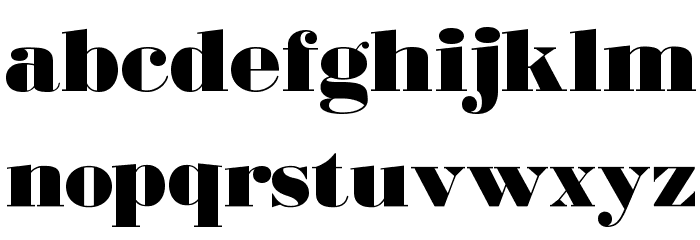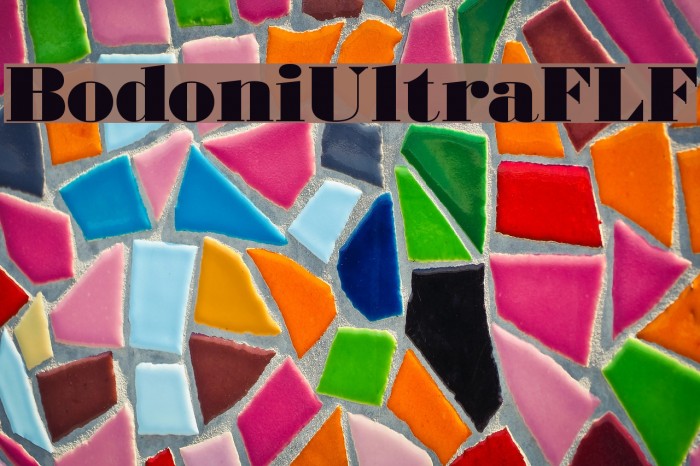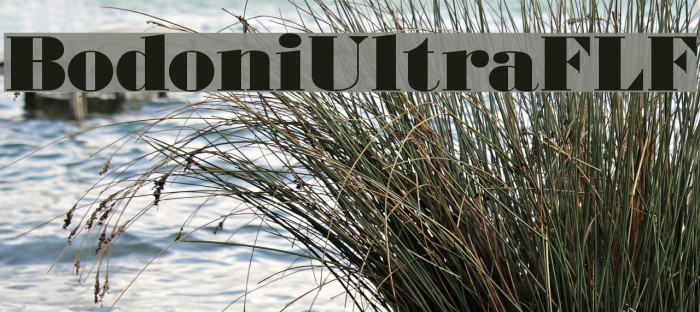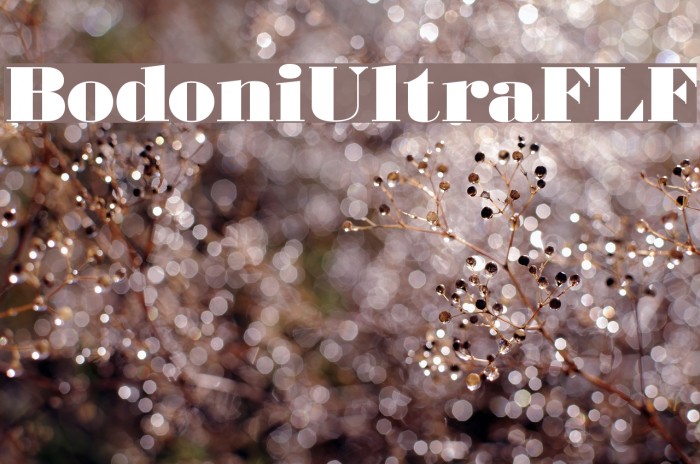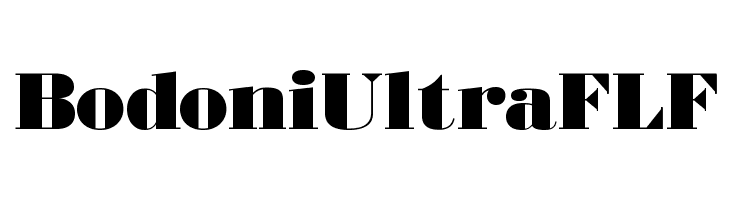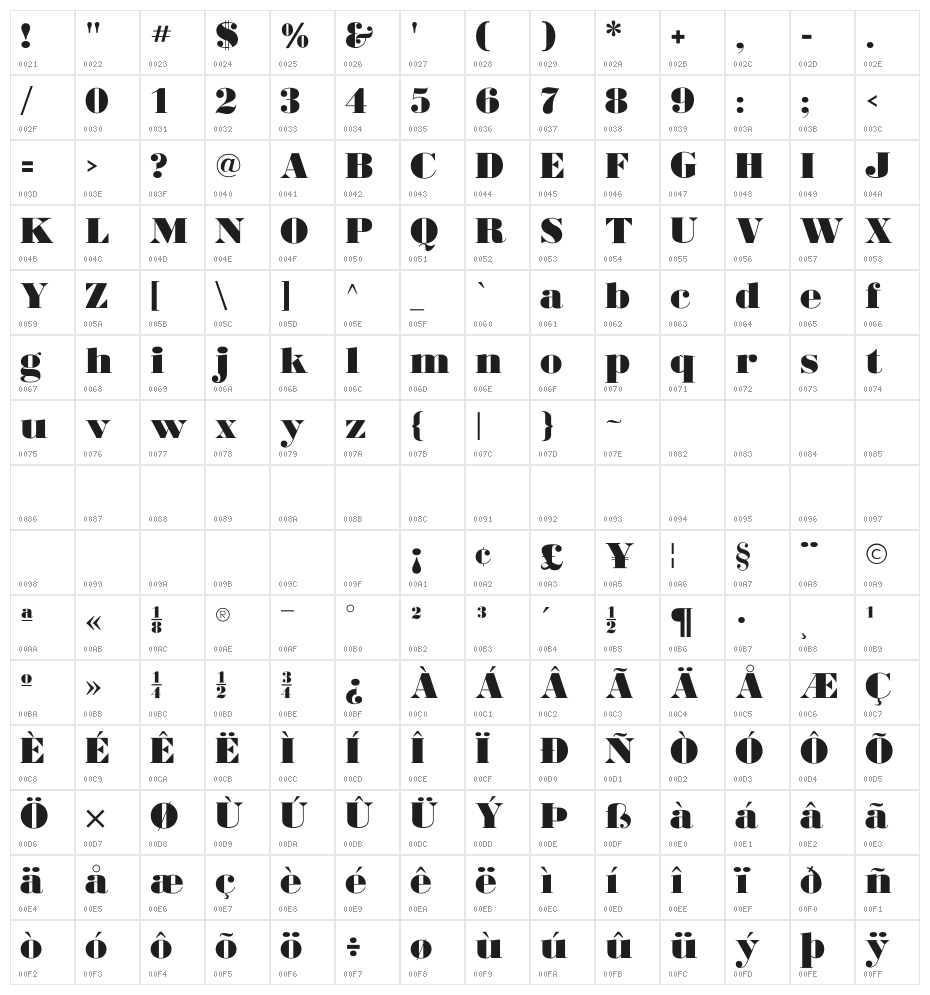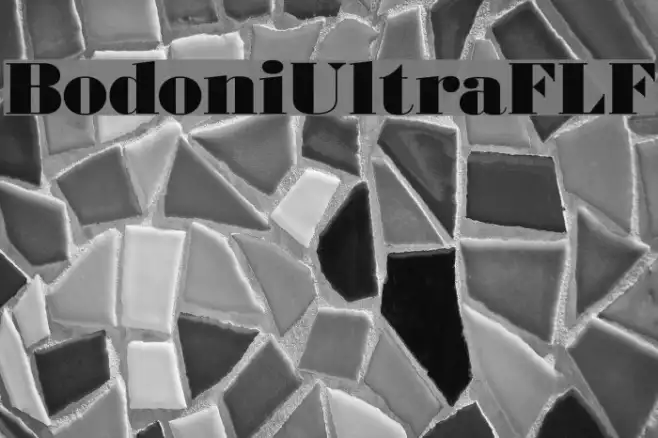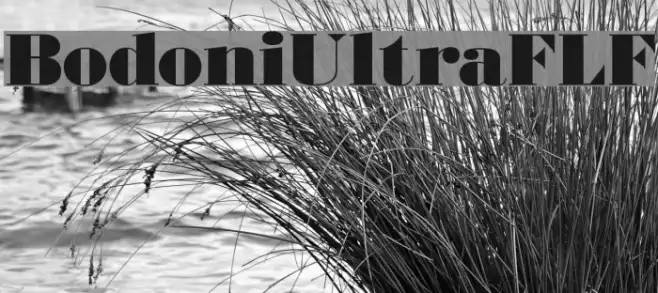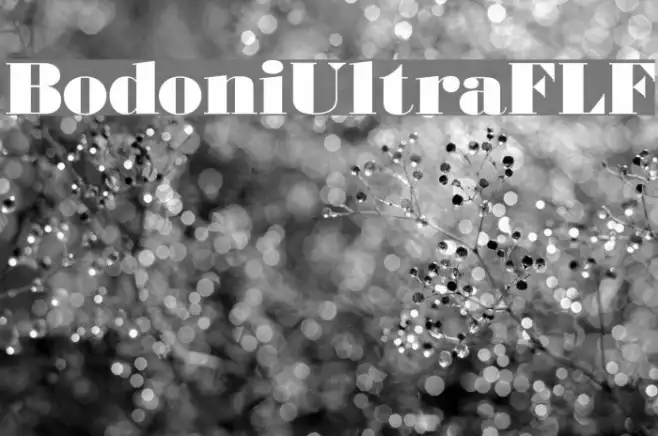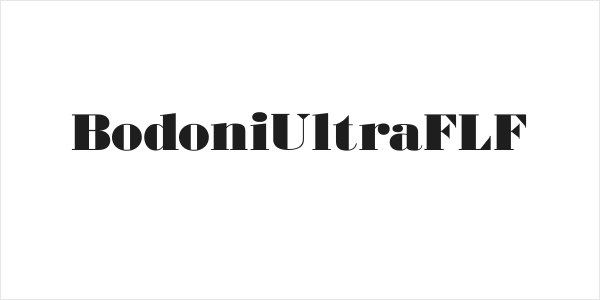
BodoniUltraFLF Font
This font is a bold and striking serif typeface characterized by its high contrast between thick and thin strokes. The uppercase letters are particularly dramatic, with sharp serifs and a strong vertical emphasis. The lowercase letters maintain a consistent style, offering a harmonious blend of elegance and readability. The numerals are equally bold, ensuring they stand out in any design. Special characters are designed with the same attention to detail, making them suitable for a variety of uses. Overall, this typeface exudes a sense of sophistication and authority.
A bold, high-contrast serif typeface with dramatic serifs and strong vertical emphasis.
- Proposed Projects: Ideal for luxury branding, editorial design, high-end packaging, and elegant invitations.
- Overall Style: Classic